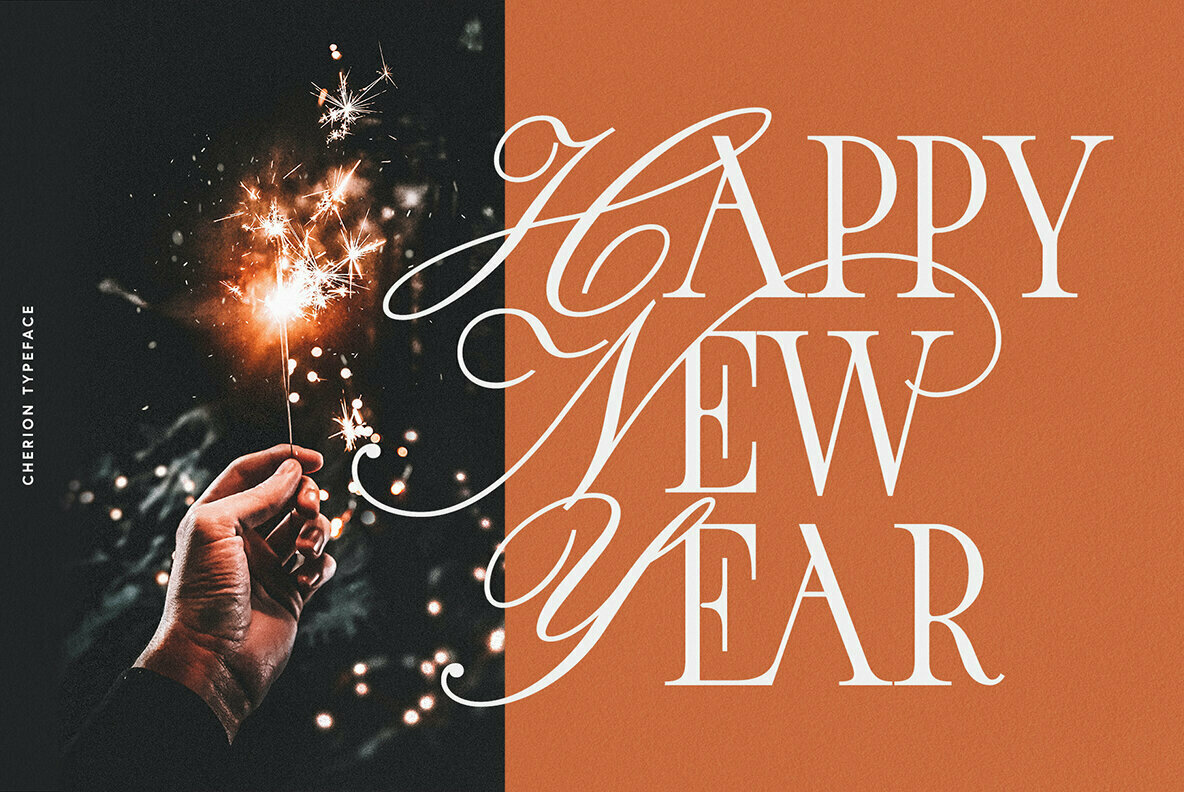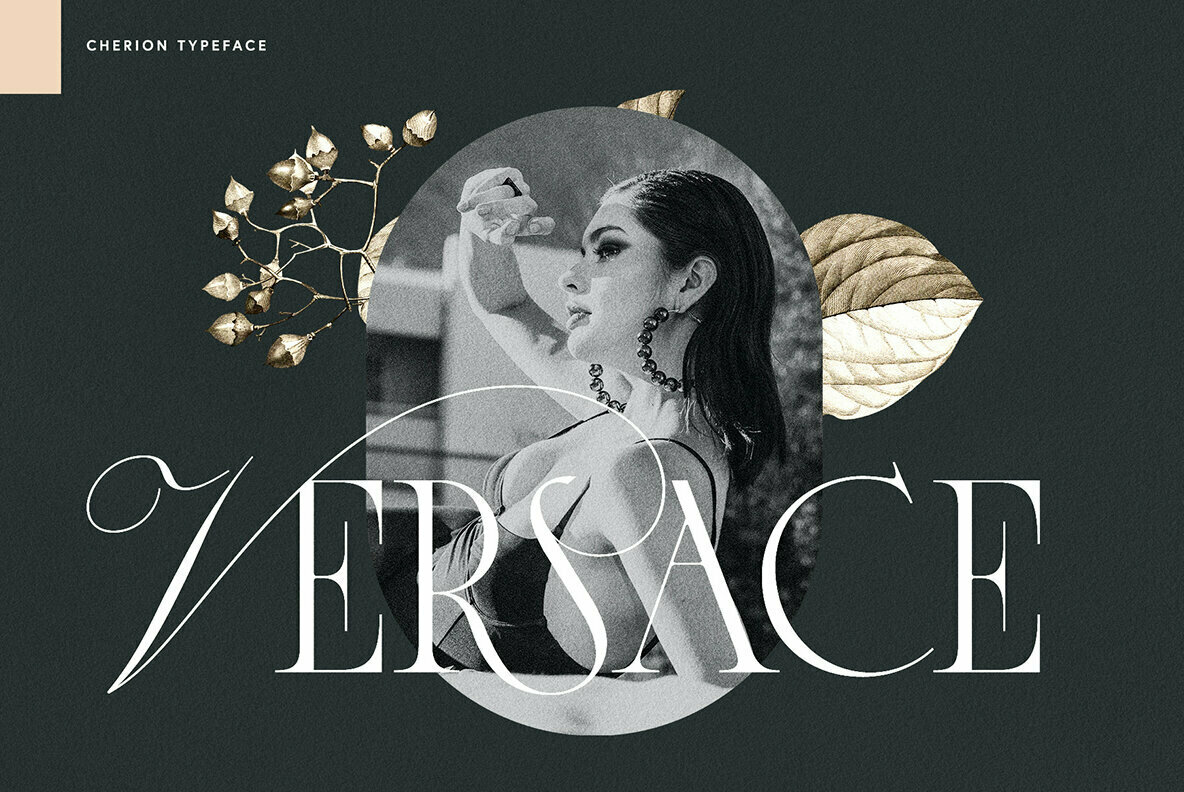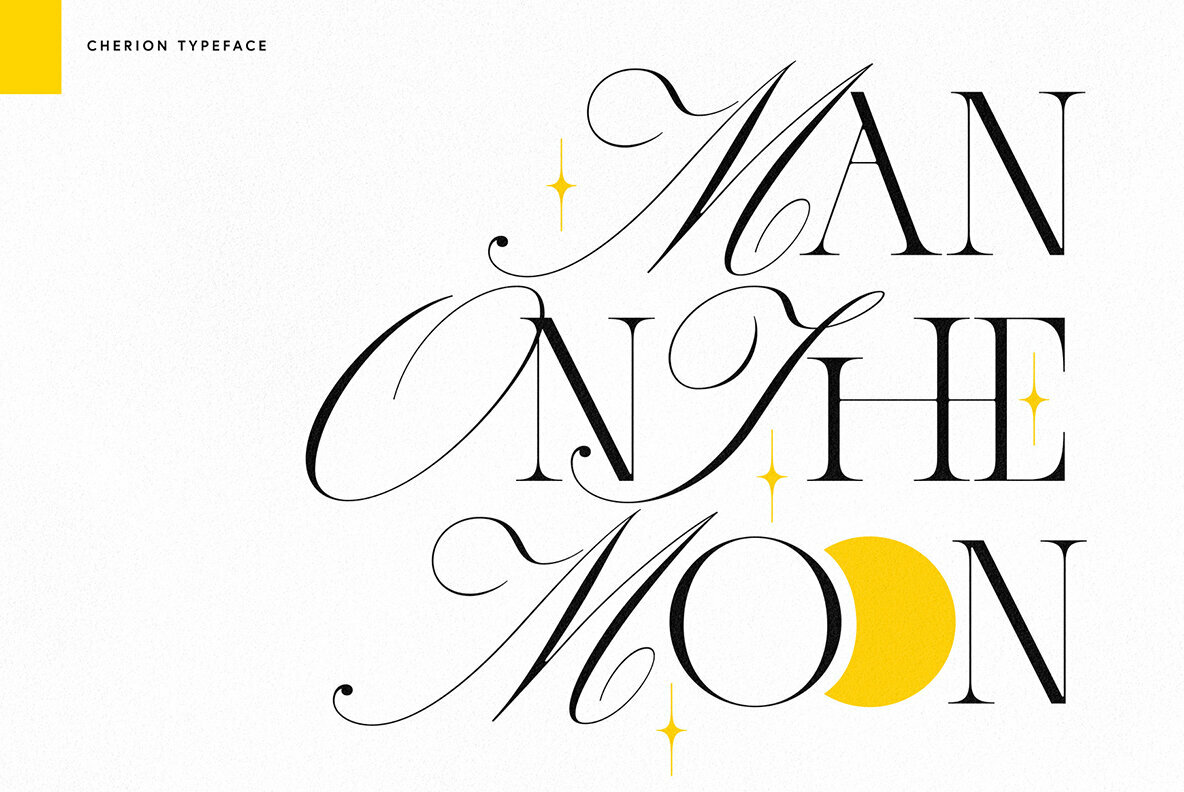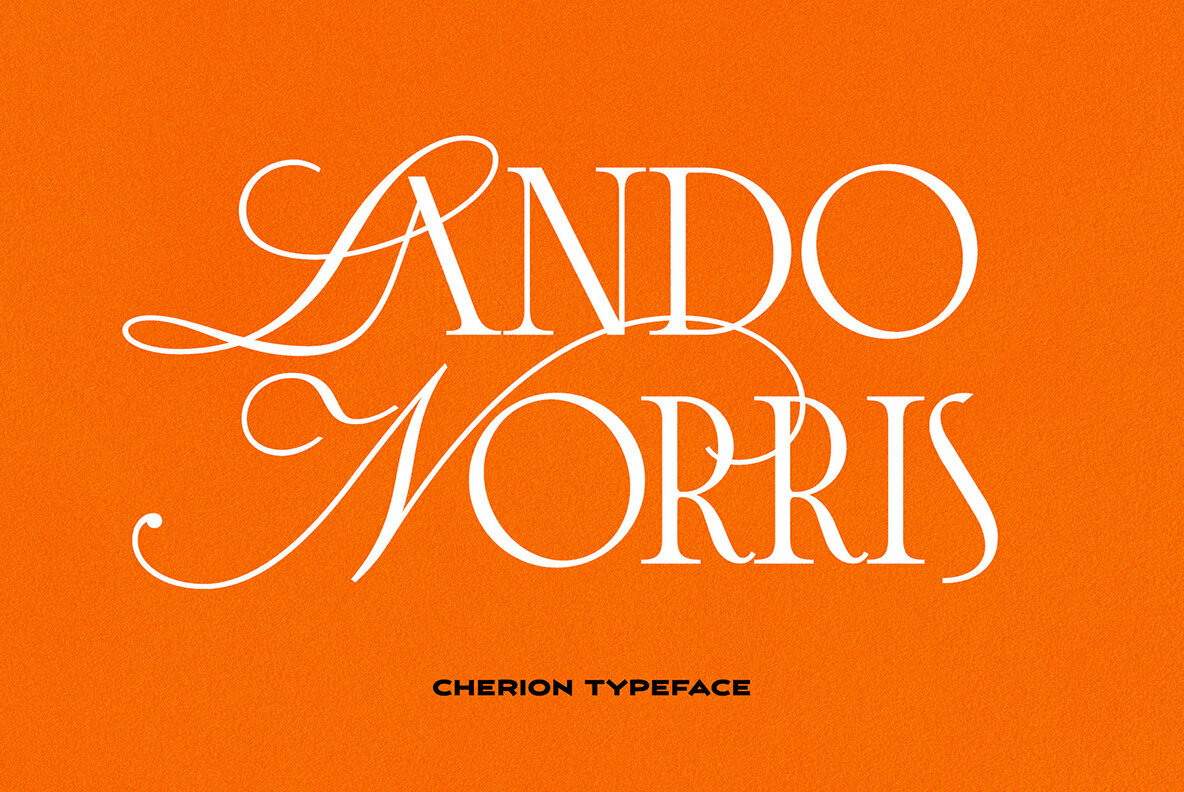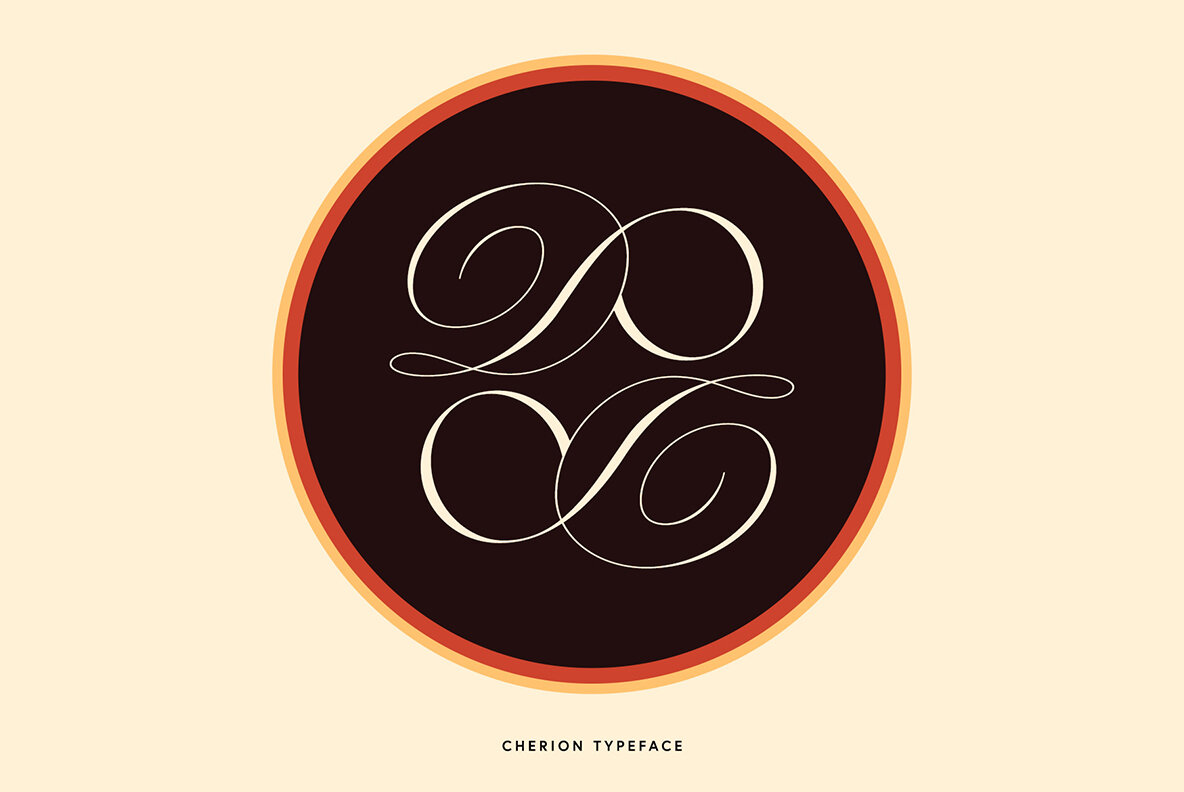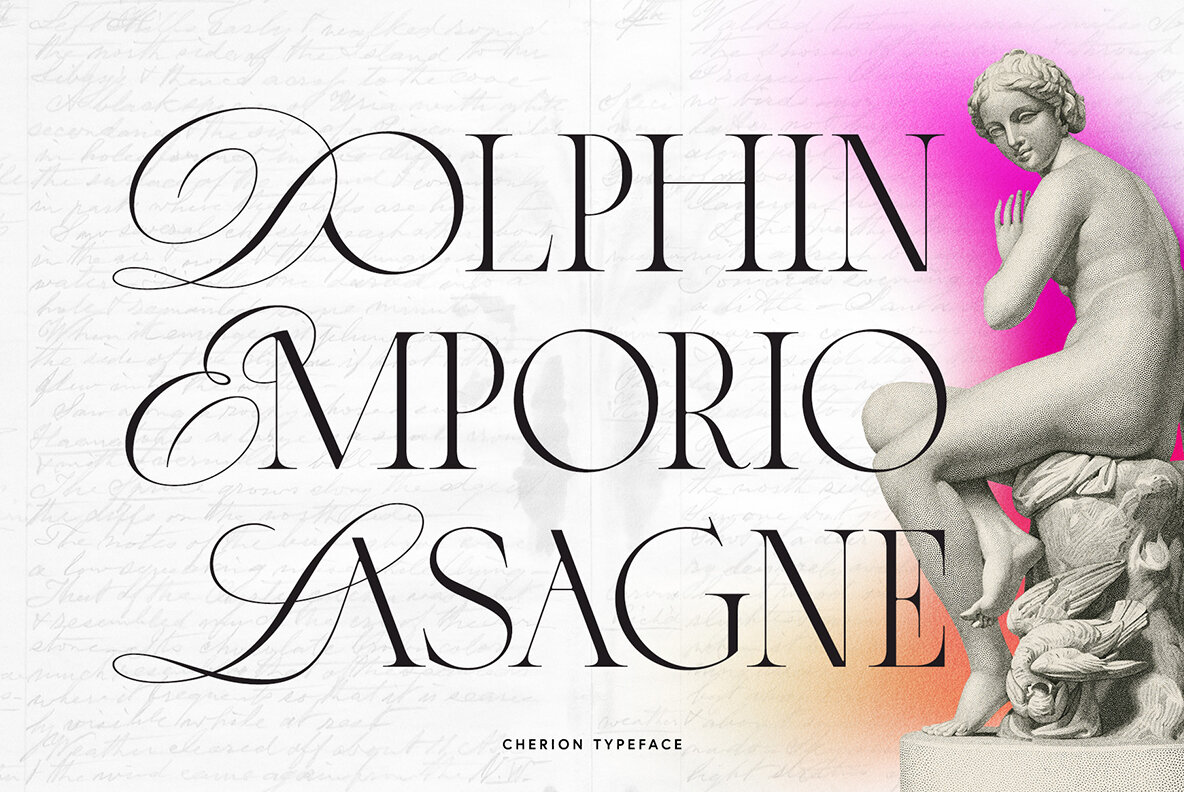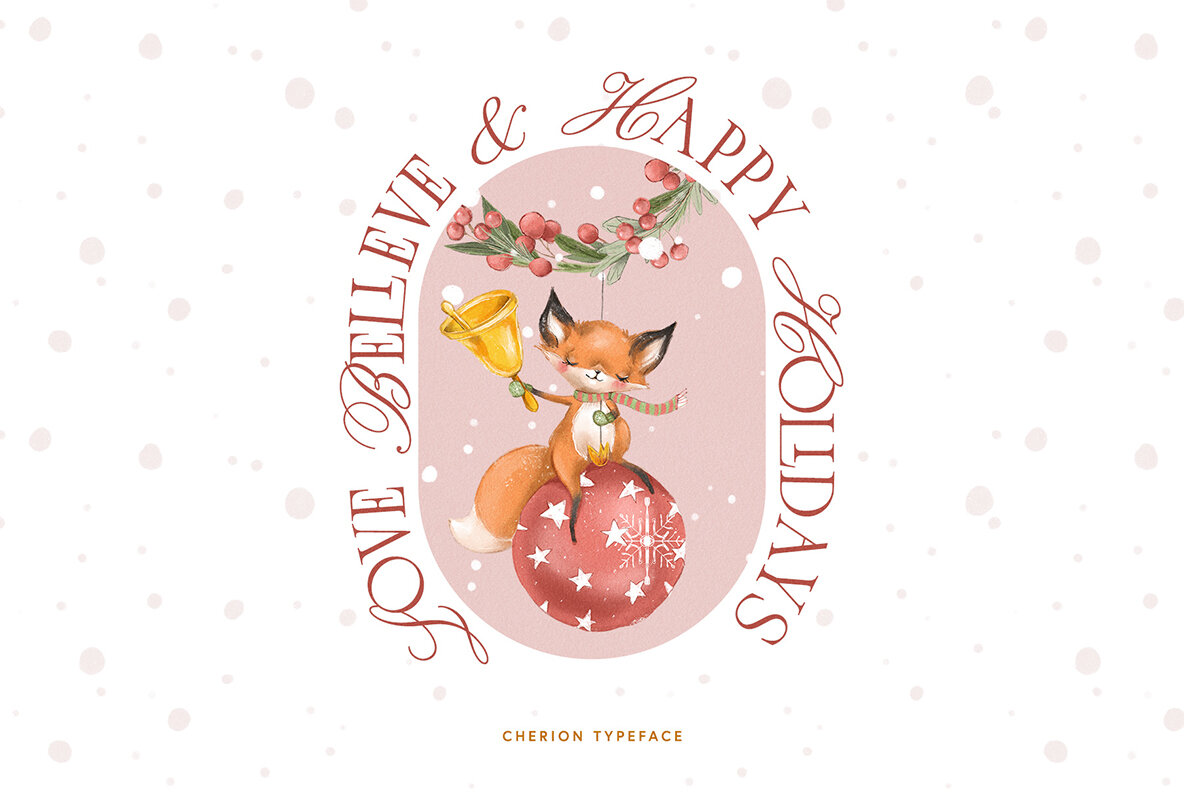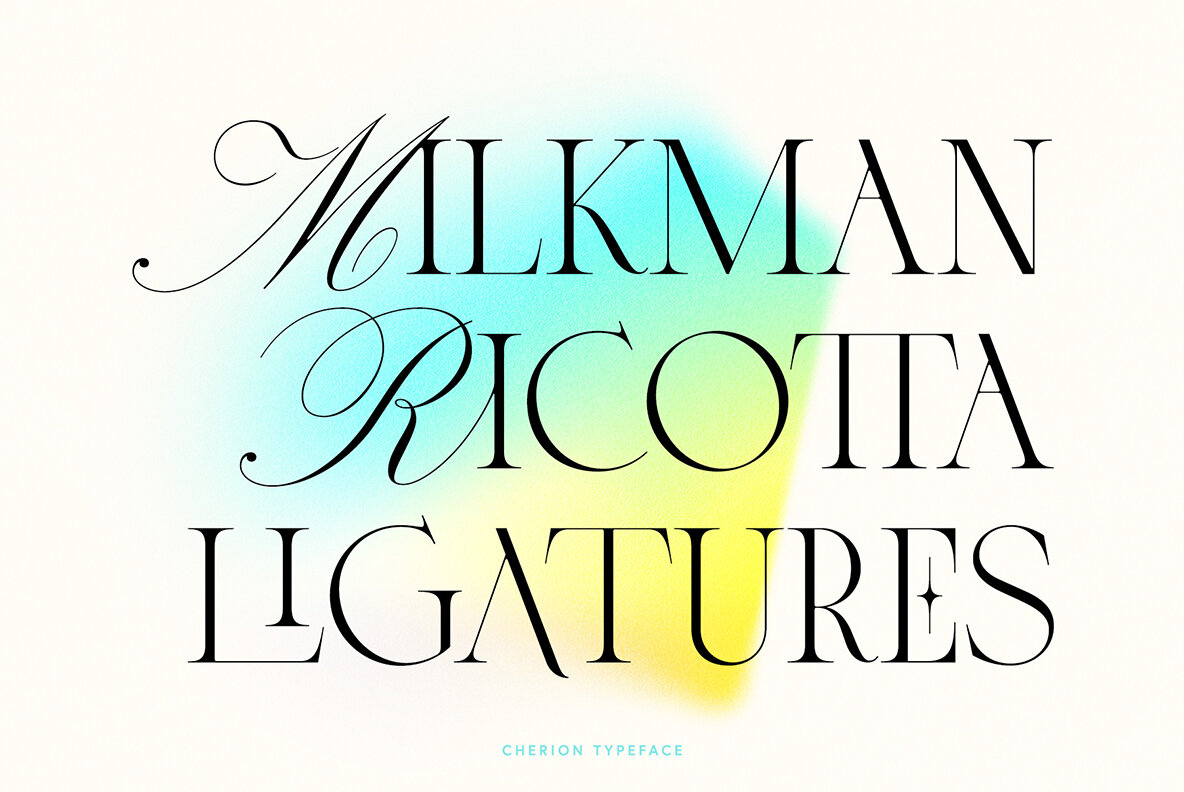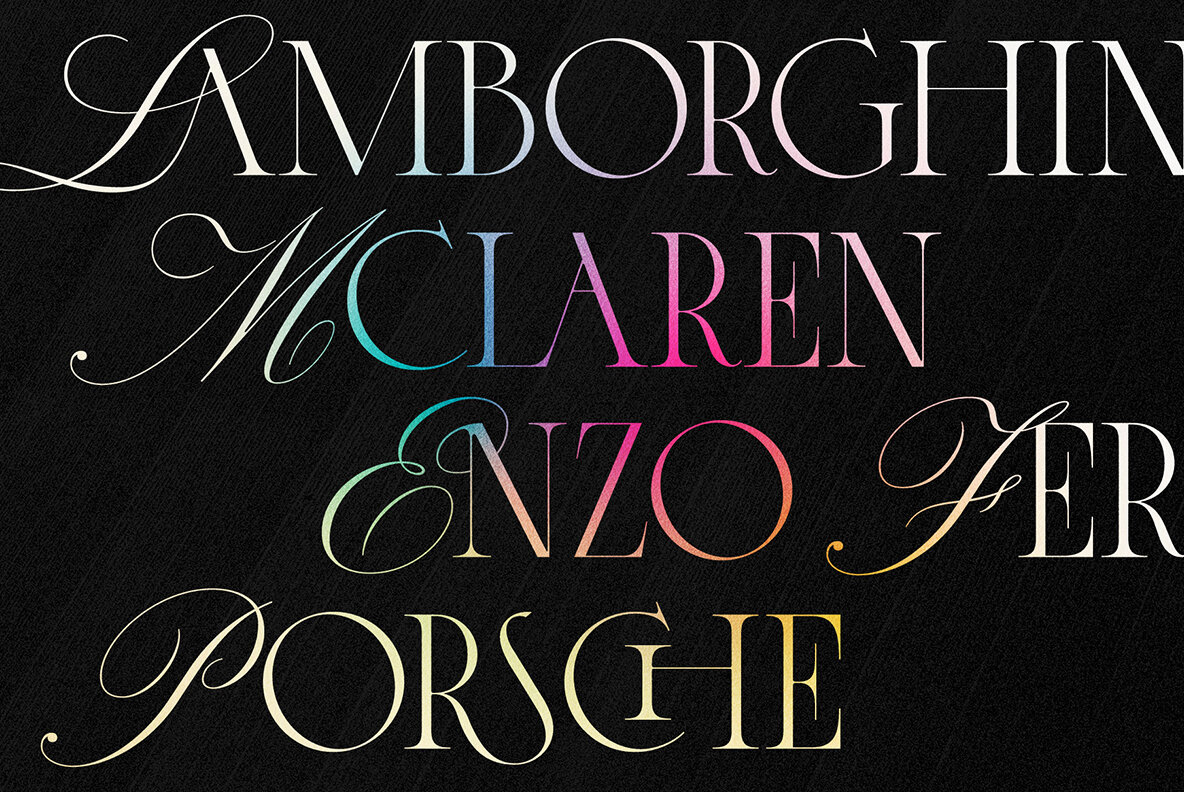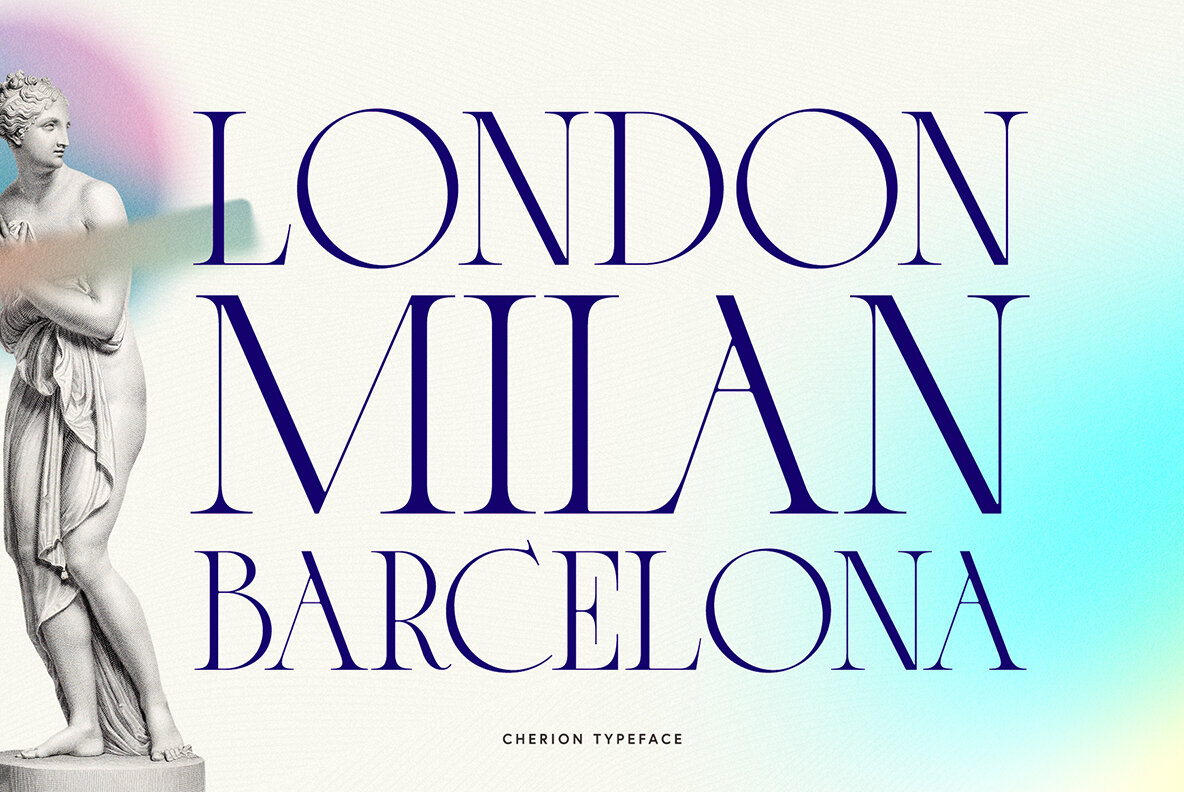
Cherion Typeface Font
Cherion Typeface is a beautiful and inspiring mix of classic calligraphy and modern serif based on a minimal and simplistic approach to elegance. The inspiration came from the fashion magazines. Its thick-thin, serif strokes express the modernity of the fashion industry.
This typeface includes special uppercase letters and access to your OpenType features, alternate glyphs and more than 70 ligatures.
Cherion Typeface is made mainly for headlines, titles, and other short texts and is well-suited for advertising, vintage mood board, branding, logotypes, packaging, titles, editorial design and modern and vintage design.